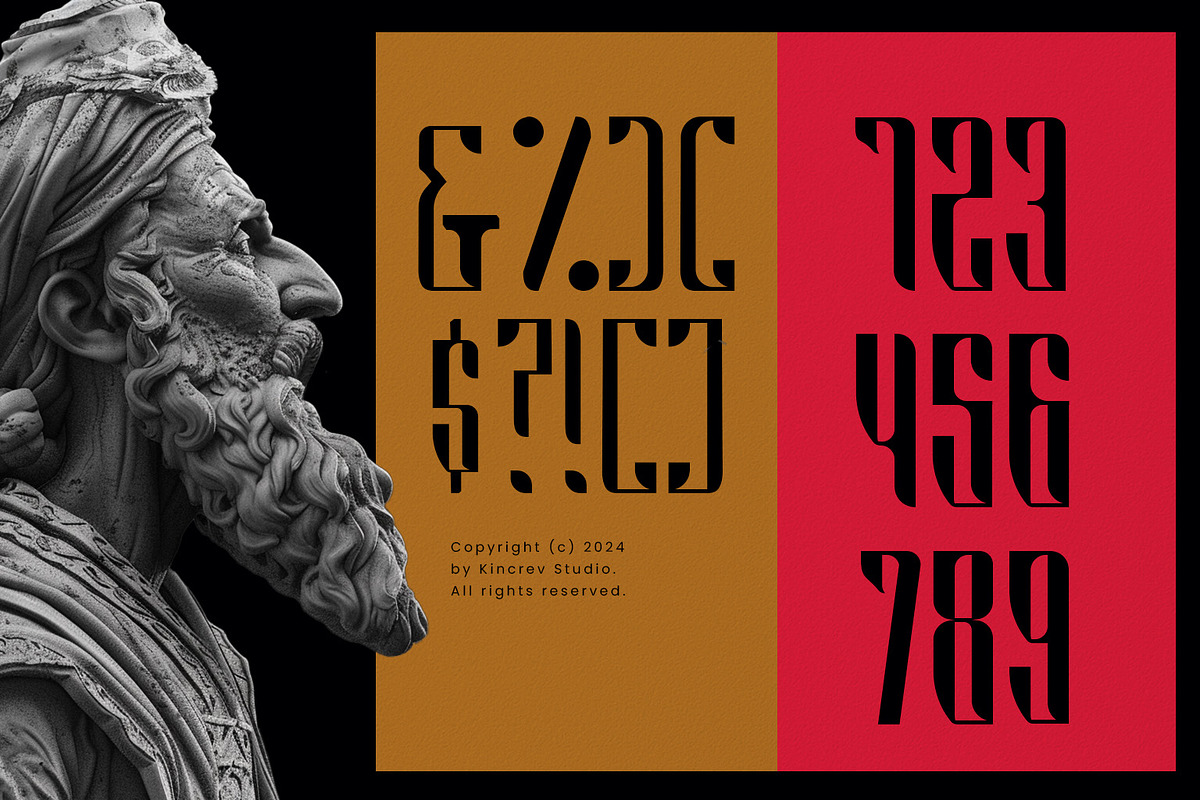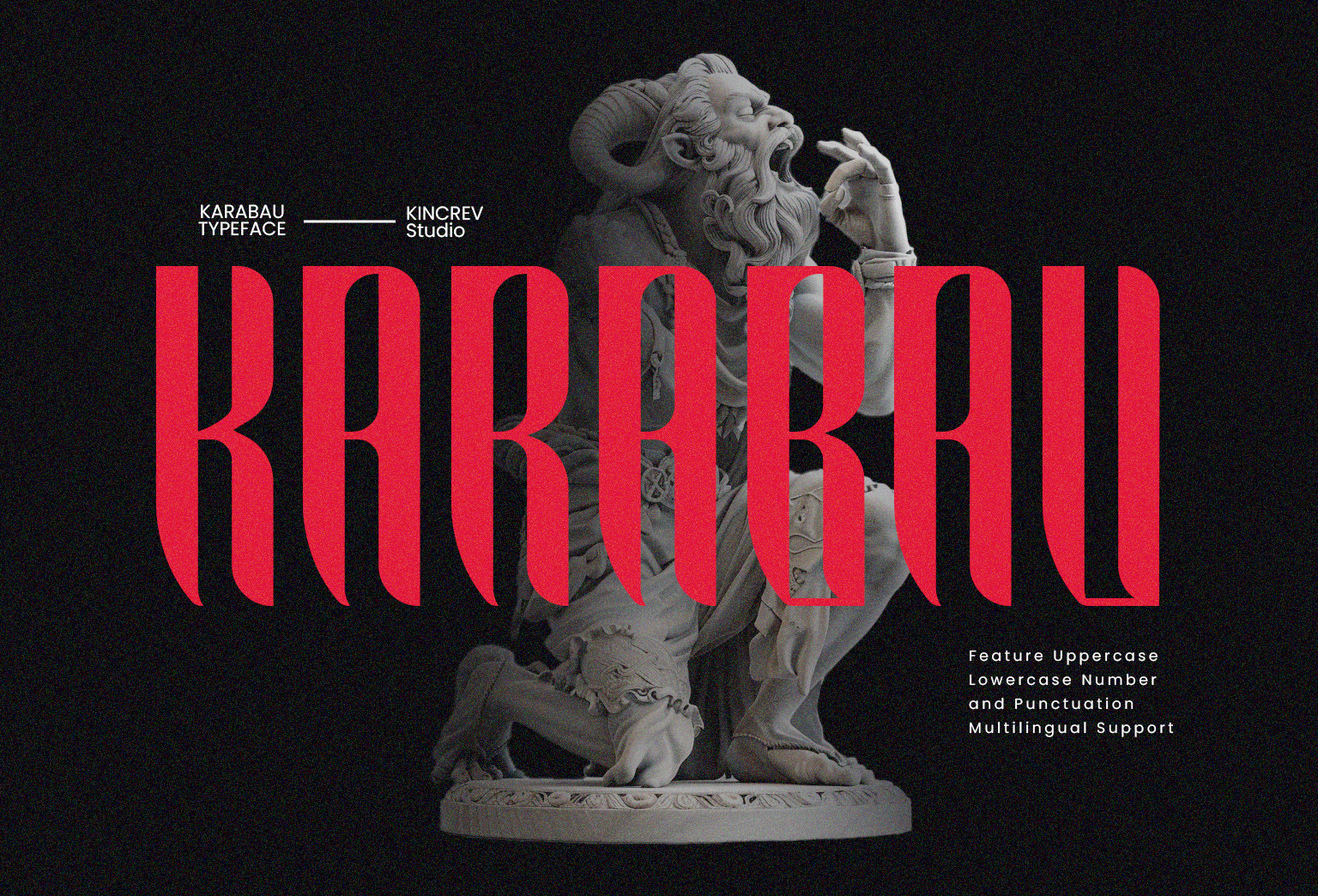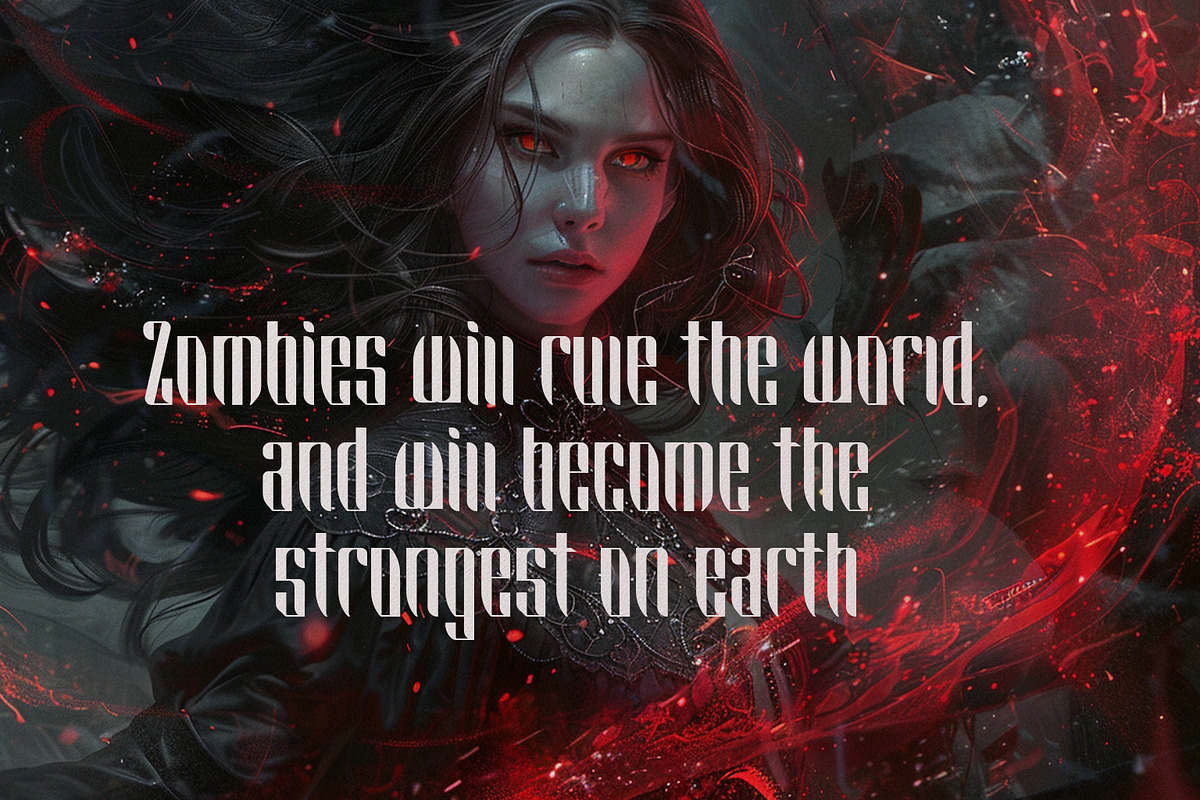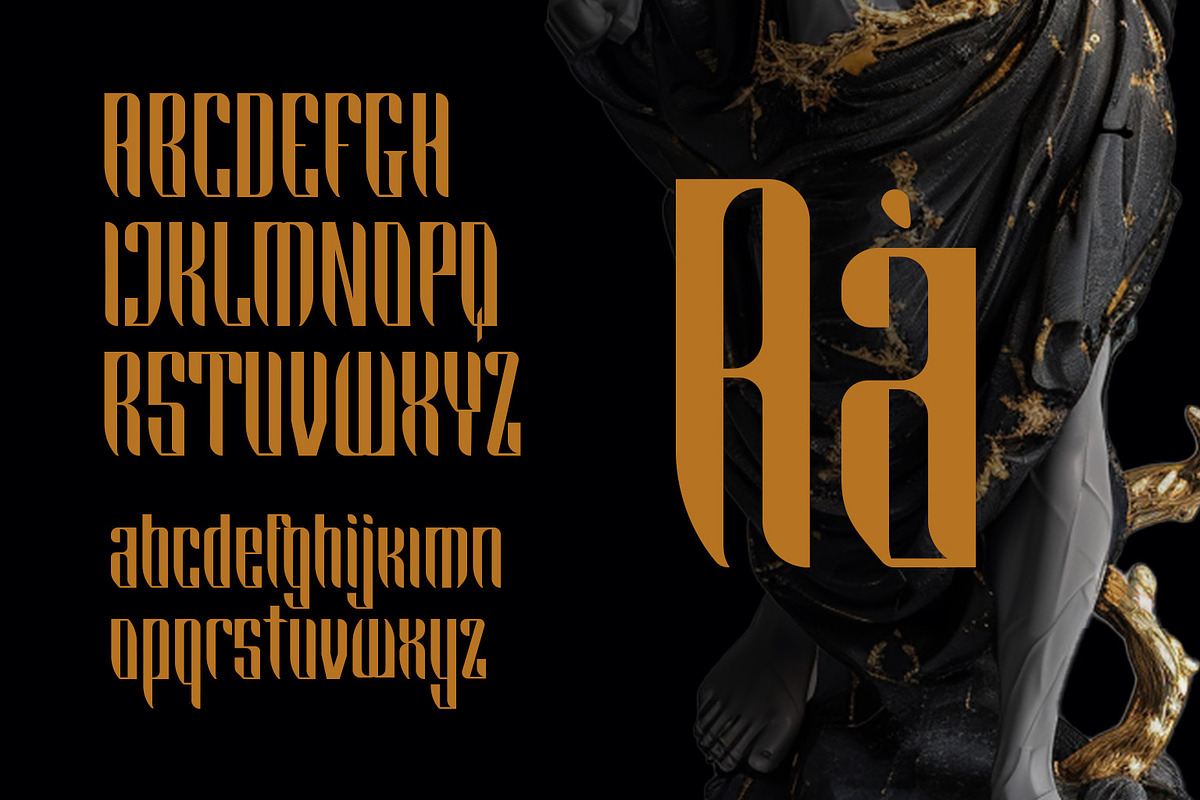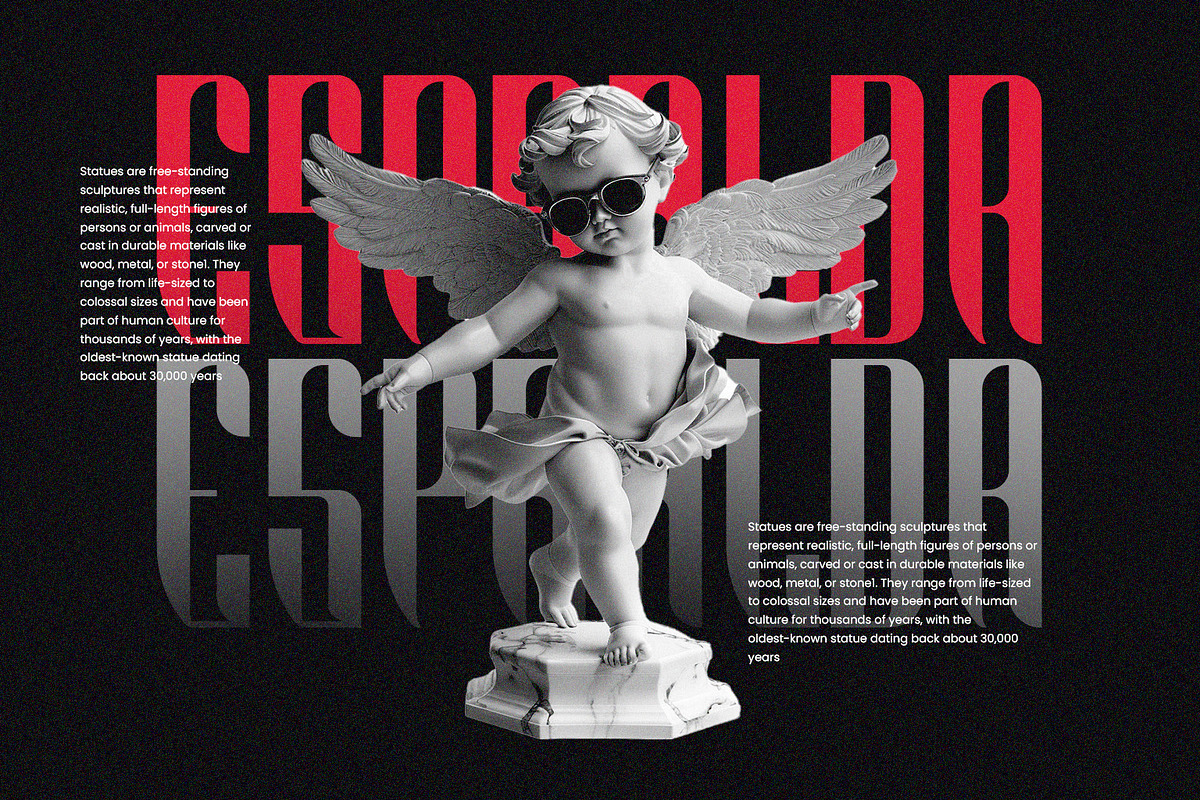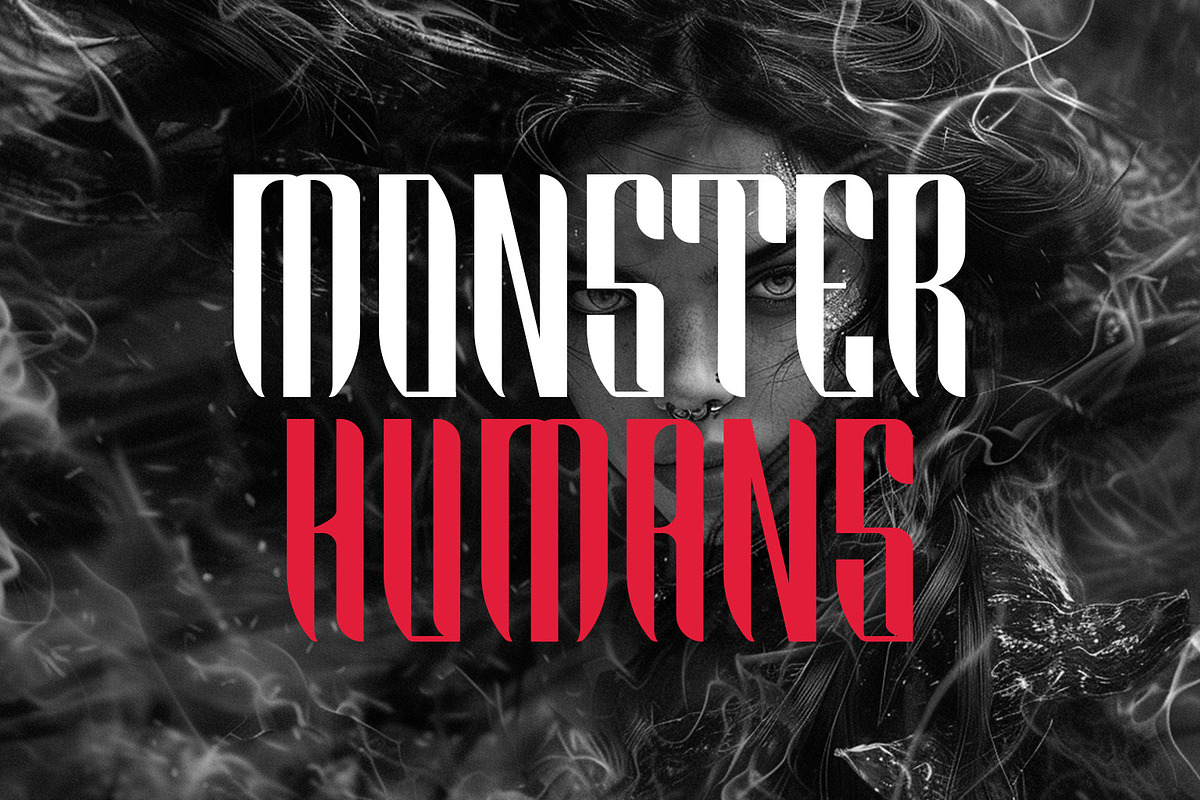
Karabau - Karabau Typeface
Hello, Everyone! Ready to make your branding design outstanding? If you need to create a simple, modern and creative look for your business, work on a poster for an event, or whatever your projects are, Karabau - Karabau Typeface is the perfect one for you.
Karabau, a typeface font is font for you to get your designs with simple, modern and creative look. It is made in uppercase & lowercase letters which are easy on the eyes and nice to look at, and easy to read. This font is designed to bring your brandings to life and add a touch of modernity, fun and style.
Karabau fits for any design projects, such as posters, banners, logos, book covers, album covers, quotes, invitations, greeting cards, name cards, headings, printed products, merchandise, social media, etc. Find out more ways to use this font by taking a look at the font preview.